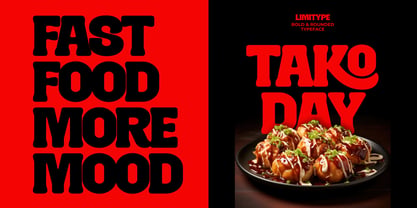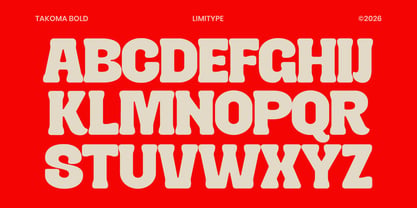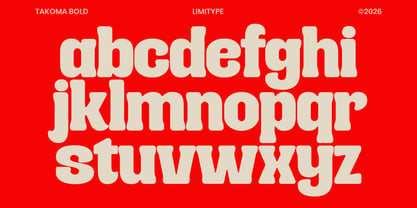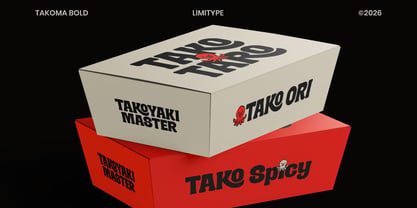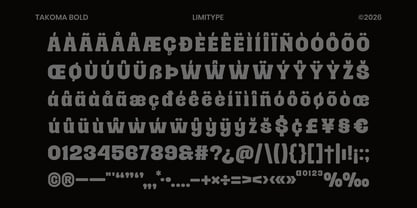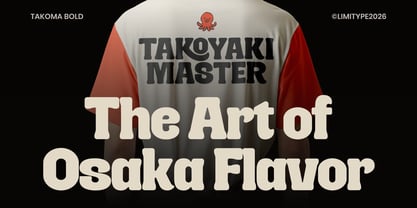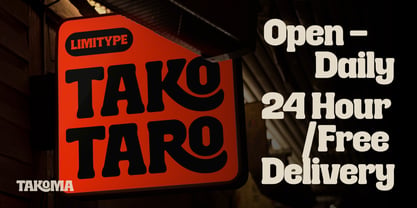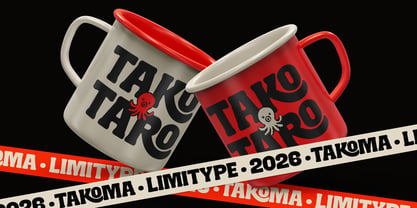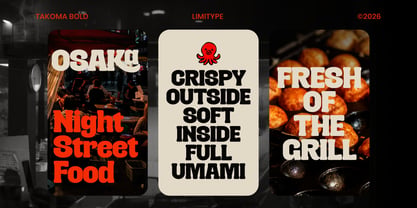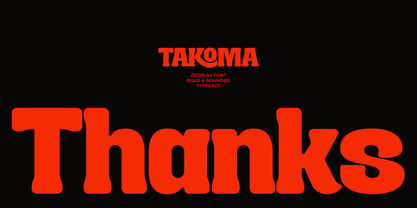
Takoma
by limitype
The Takoma Font Family was designed by Muhammad Muammar, Furqan Sudirman and published by limitype. Takoma contains 1 styles. More about this family
Takoma is a bold display font featuring strong letterforms, elegant serif details, and stylish ligature alternatives that create a distinctive and memorable appearance. Blending the timeless charm of classic serif design with a bold modern character, Takoma is ideal for food branding, logotypes, visual identities, packaging, posters, headlines, social media graphics, editorial layouts, and a wide range of premium branding projects. Its striking personality and refined details make it an excellent choice for designers looking to create warm, appetizing, and memorable visual identities.